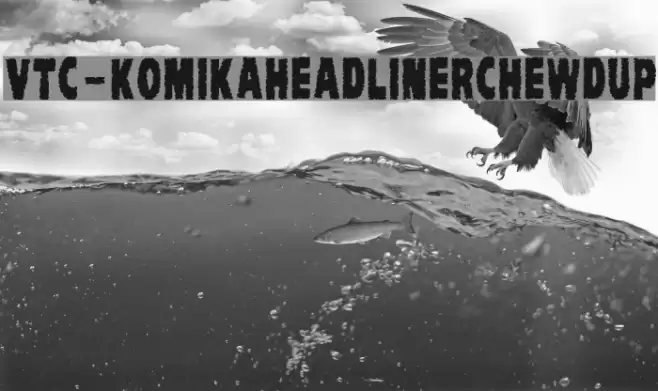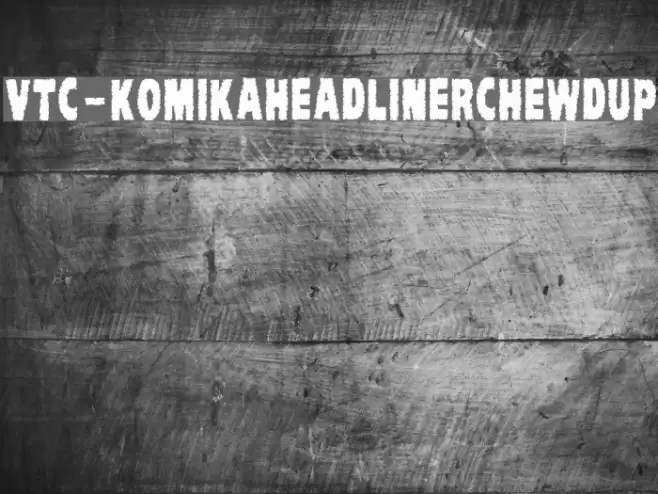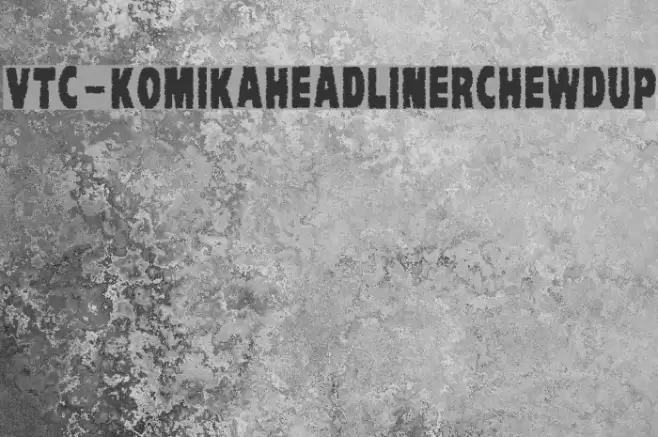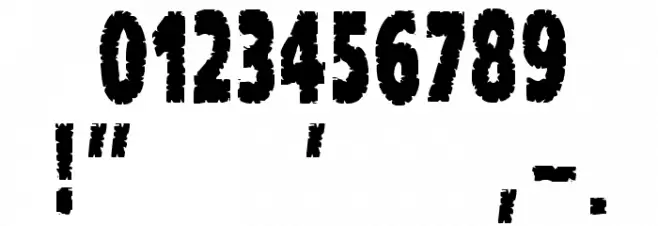
VTC-KomikaHeadLinerChewdUp Font
VTC-KomikaHeadLinerChewdUp Description
This font features a bold and rugged design, characterized by its distressed and textured appearance. Each letter appears as if it has been roughly carved or eroded, giving it a unique, edgy look. The uppercase letters are prominent and commanding, while the numbers and special characters maintain the same bold, textured style. This font is ideal for projects that require a strong, impactful visual presence, such as posters, headlines, or branding materials that aim to convey a sense of toughness or rebellion.
A bold, distressed font with a rugged, textured appearance from Uncategorized fonts.
- Proposed Projects: Ideal for posters, headlines, branding, and any design needing a strong, edgy impact.